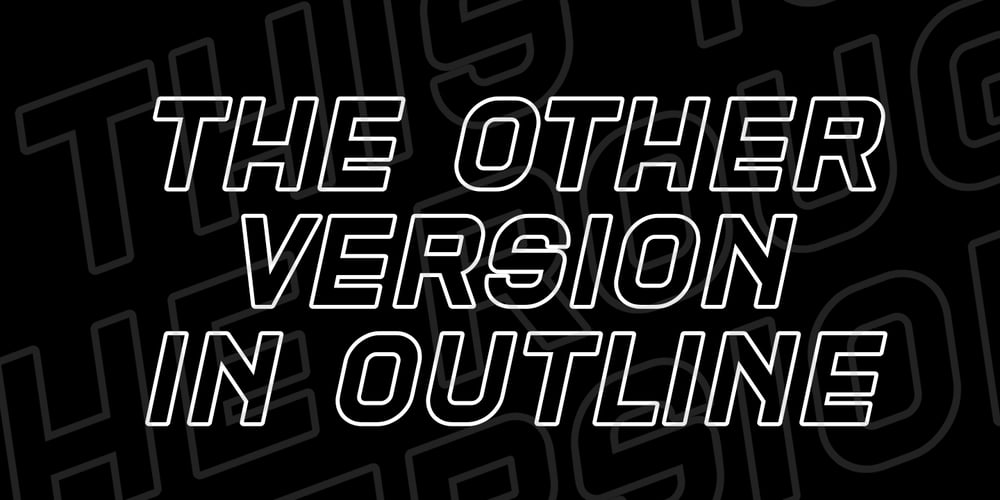
Blame Font Family was designed by Sarwo Edhi Prayitno and published by Haksen. Blame contains 12 styles and family package options. Blame is a strong font family and sophisticated sans also serif Each font in the family can stand on its own, dynamic and authoritative in their own right. Bison includes ten all-caps fonts: a weight (clean and rough version), two outlines, four italics. – Blame Sans Clean and Rough Regular – Blame Serif Clean and Rough Regular – Blame Sans Clean and Rough Italic – Blame Serif Clean and Rough Italic – Blame Sans Outline Regular and Italic – Blame Serif Outline Regular and Italic FEATURES : a weight / Italics / Outlines / Numbers & Punctuation / Extensive Language Support USE Blame works great in any branding, logos, magazines, films. The different weights give you full range to explore a whole host of applications, while the outlined fonts give a real modern feel to any project. Thanks for having a peek at Blame. I hope you enjoy it and feel free to take it for a spin below! As always, if you have any questions just send me a message! I’m glad to help 🙂 Haksen